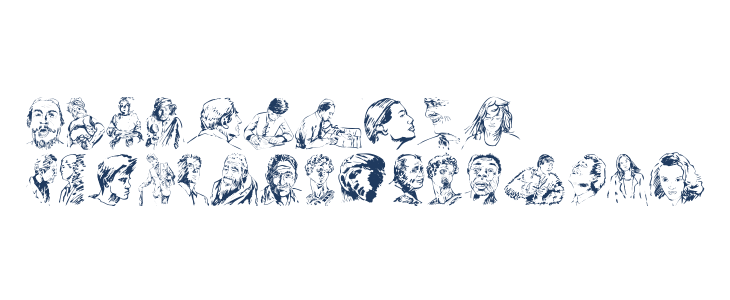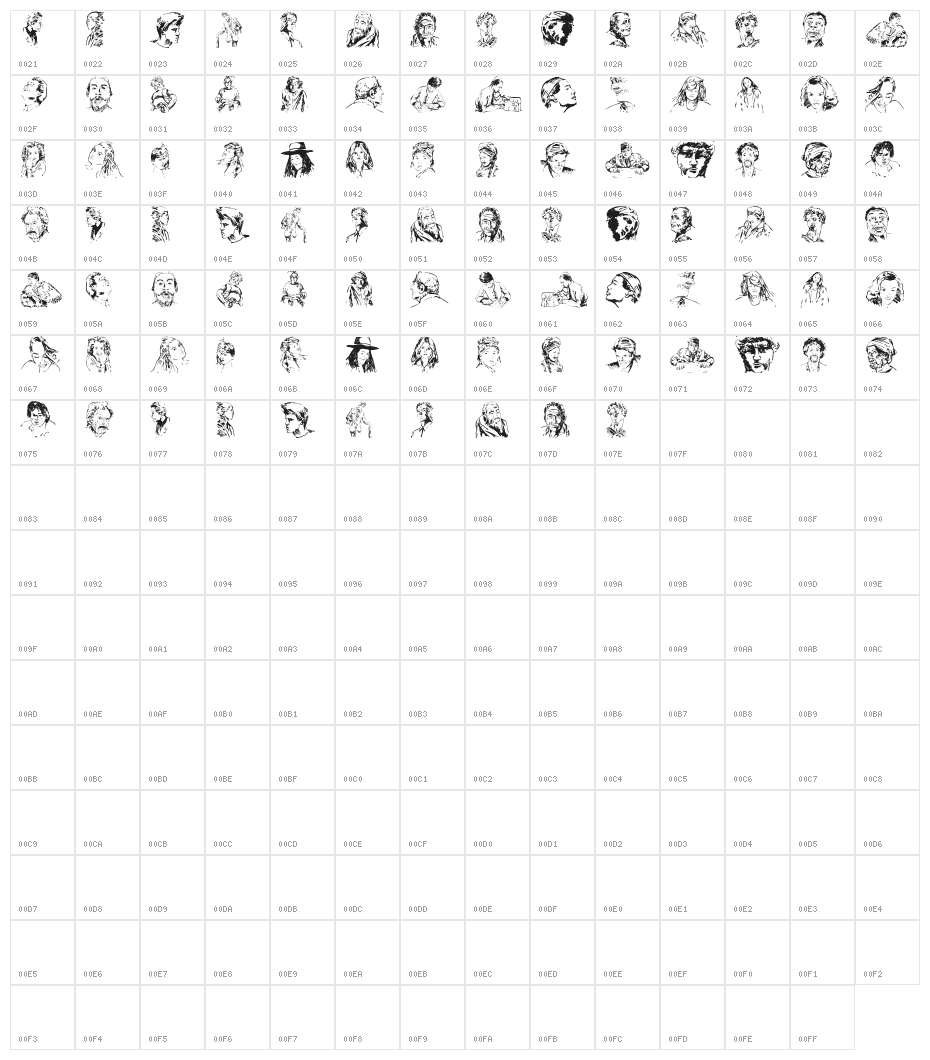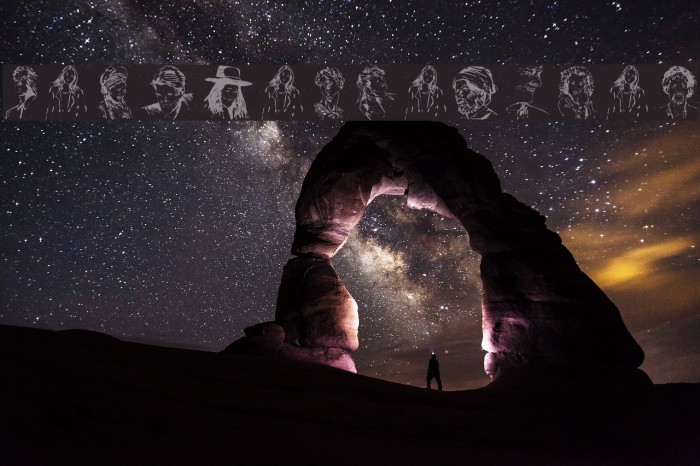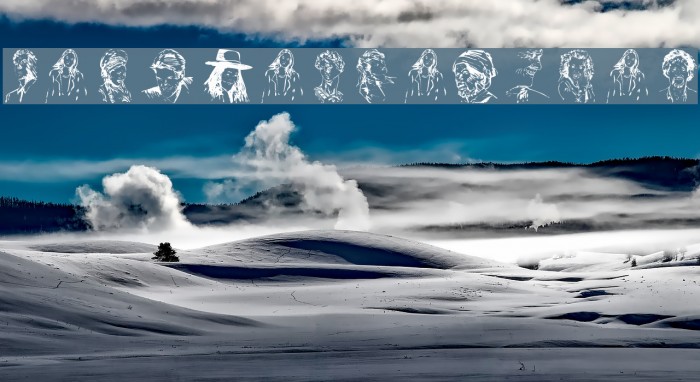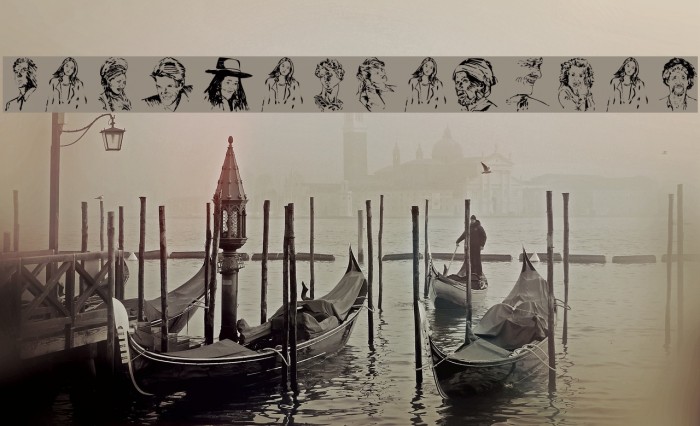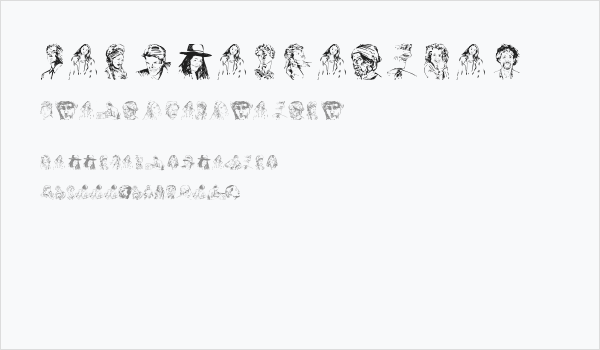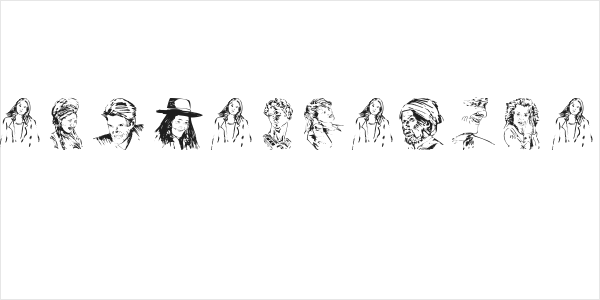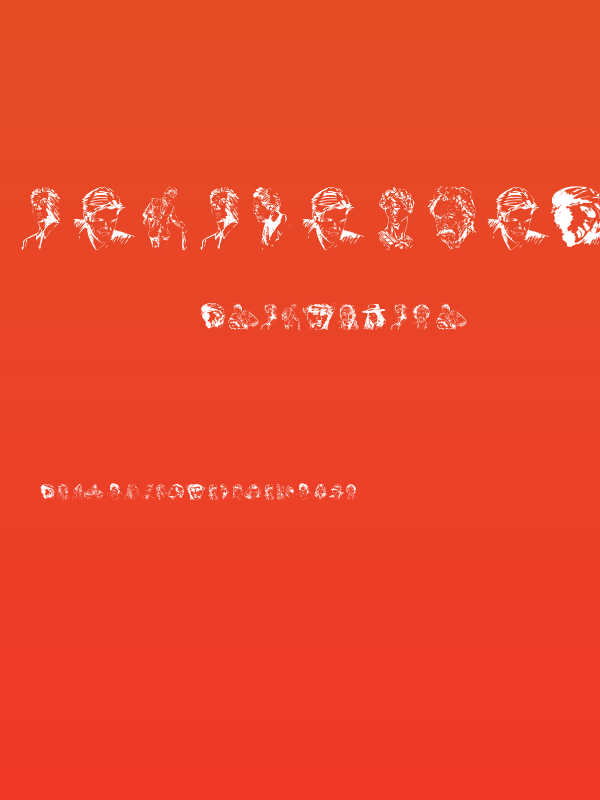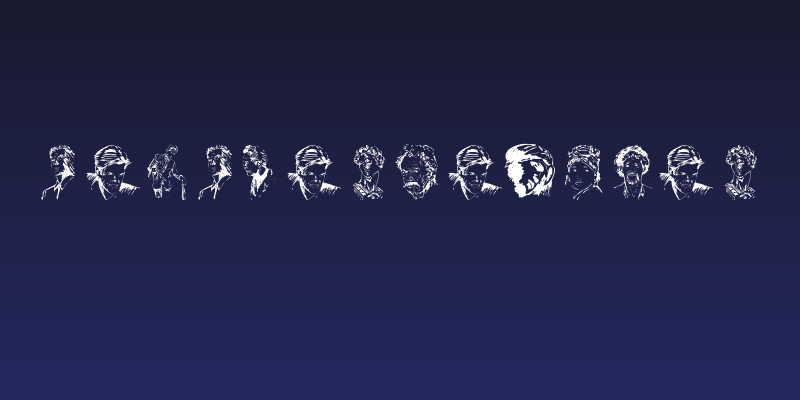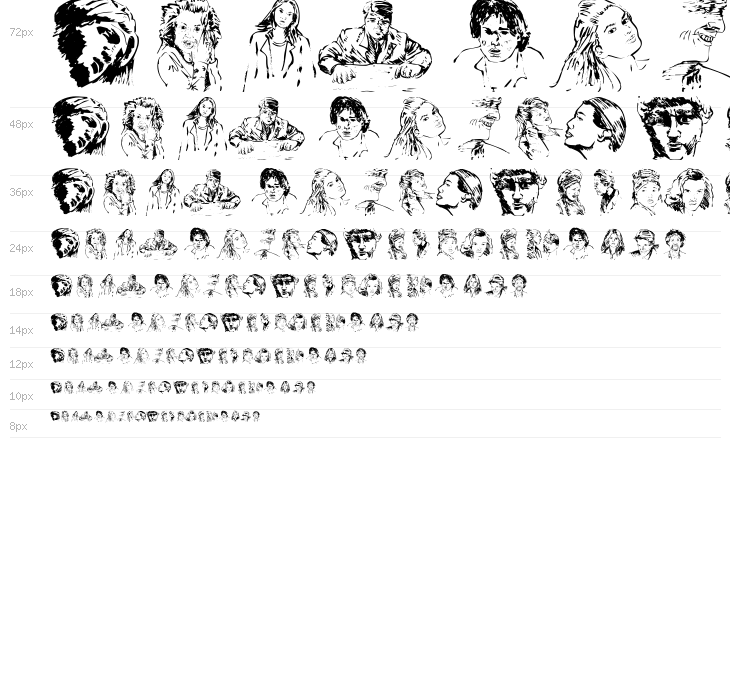
PeopleSketches Font
PeopleSketches Description
A collection of detailed black and white hand-drawn sketches of various human faces and upper body portraits, showcasing diverse expressions and angles with intricate line work.
| Overall Style | Artistic, Sketch |
| Use Case | Illustrations, Artistic projects, Editorial design |
| Proposed Projects | Illustrations, storyboards, character design, editorial artwork, and artistic projects requiring expressive human portraits. |